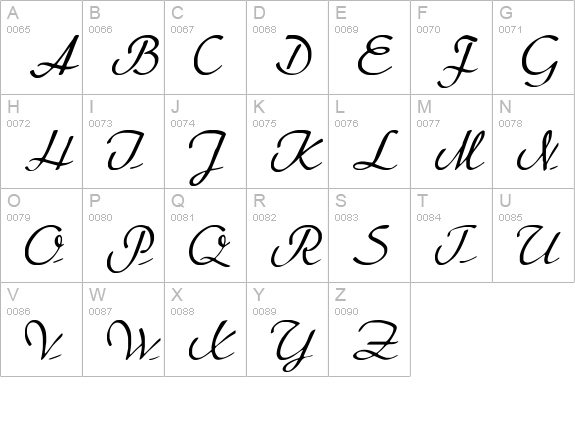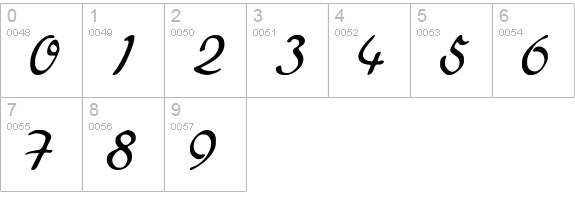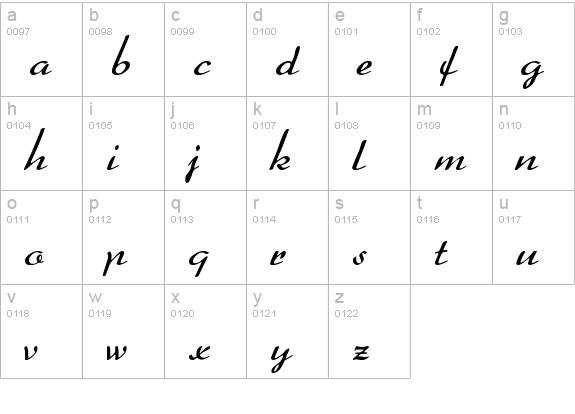
Heather font is a stylish and elegant typeface that adds a touch of sophistication to any design project. Its delicate and flowing letterforms exude grace and beauty, making it perfect for wedding invitations, branding materials, and other high-end designs. What sets Heather font apart is not only its stunning aesthetics but also the fact that it is available for free. Yes, that's right - this exquisite font can be freely downloaded at FontsMarket.com, allowing designers and creatives to access its beauty without any financial constraints. With its versatile and timeless appeal, Heather font is a must-have for any designer's toolkit. Whether you're working on a contemporary logo or a vintage-inspired poster, this font will effortlessly elevate your designs to new heights. The attention to detail in Heather font is remarkable - from the perfectly balanced letterforms to the subtle ligatures and swashes, every aspect has been carefully crafted to create a harmonious and visually pleasing typeface. Its wide range of weights and styles further enhance its versatility, giving you the freedom to experiment and create unique designs. Whether you're a seasoned designer or just starting out, Heather font offers endless possibilities for your creative projects. Its clean and legible design ensures readability at any size, making it suitable for both print and digital applications. So why wait? Experience the beauty and versatility of Heather font today. Head over to FontsMarket.com and download it for free. Unleash your creativity and let Heather font elevate your designs to new levels of elegance and sophistication.